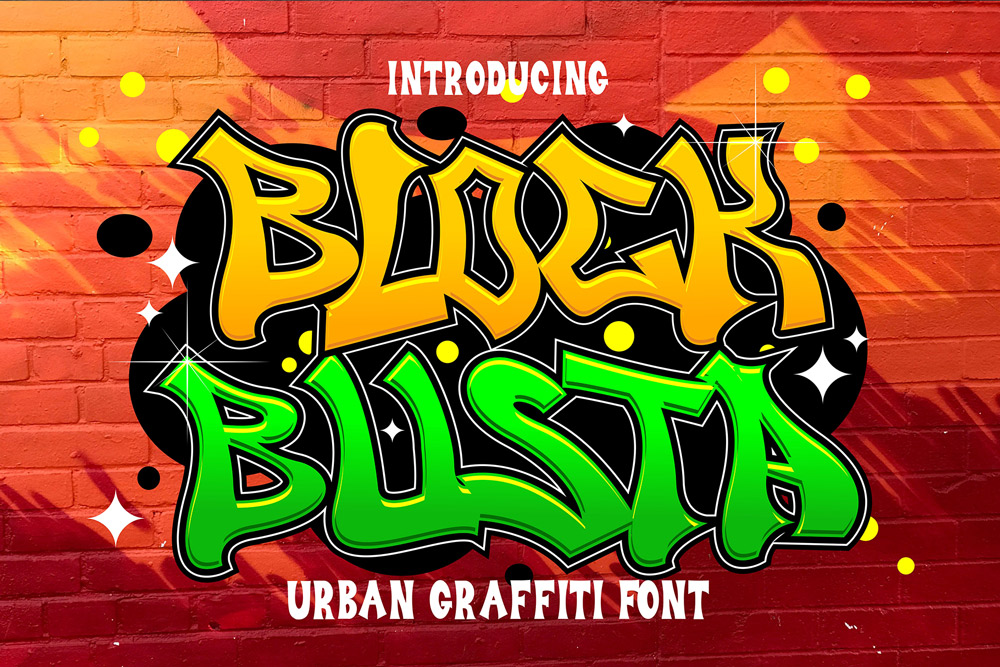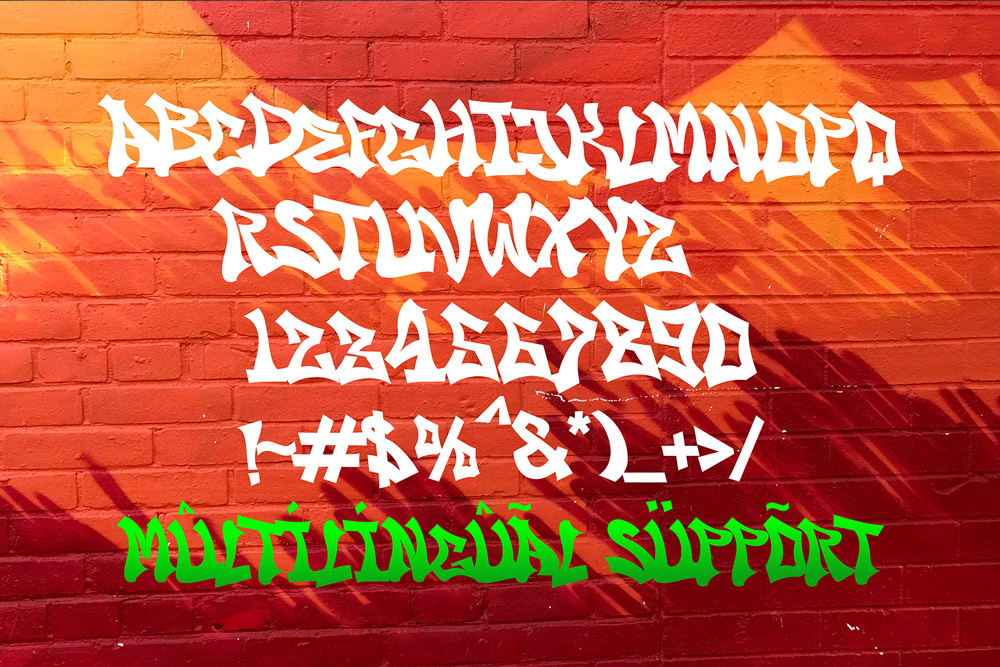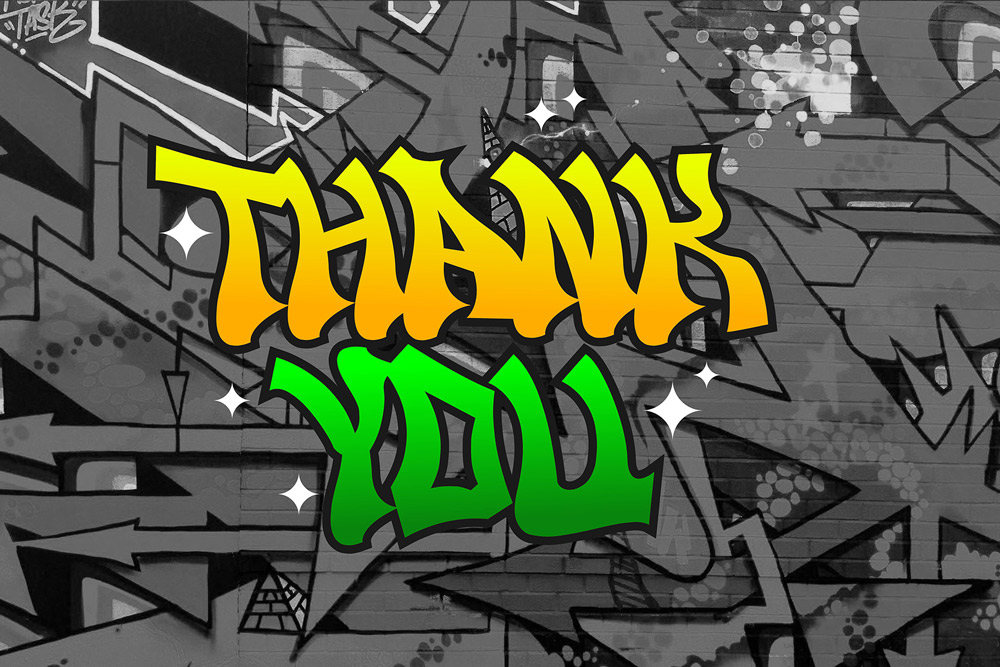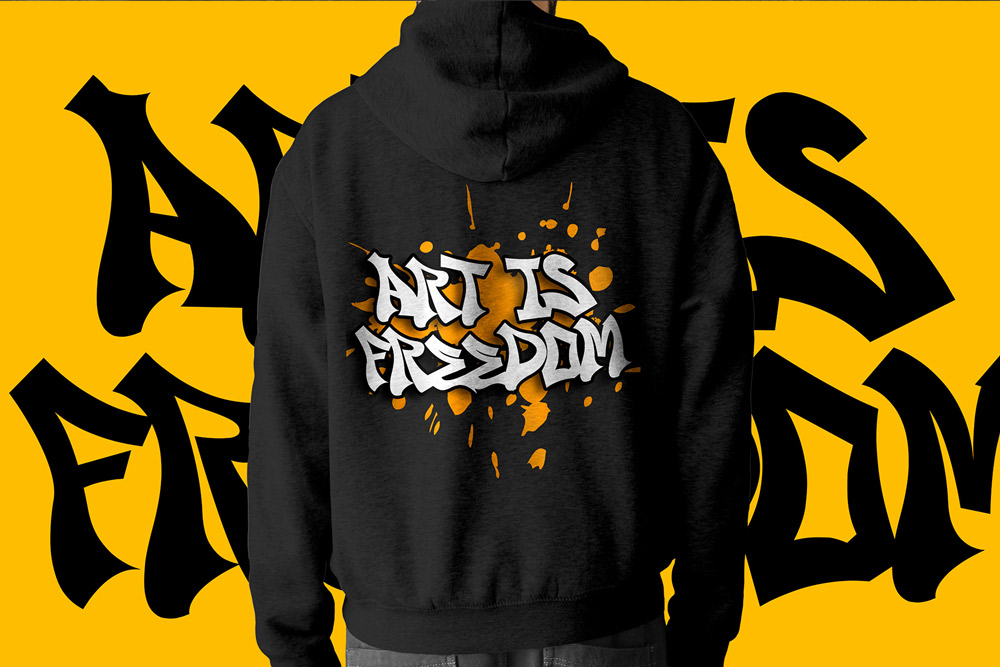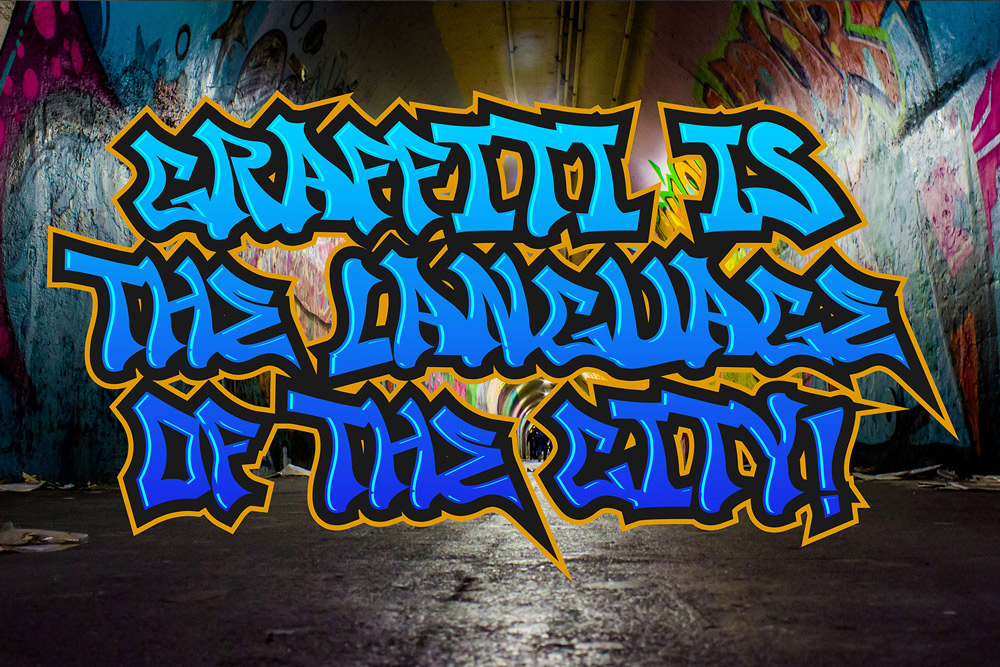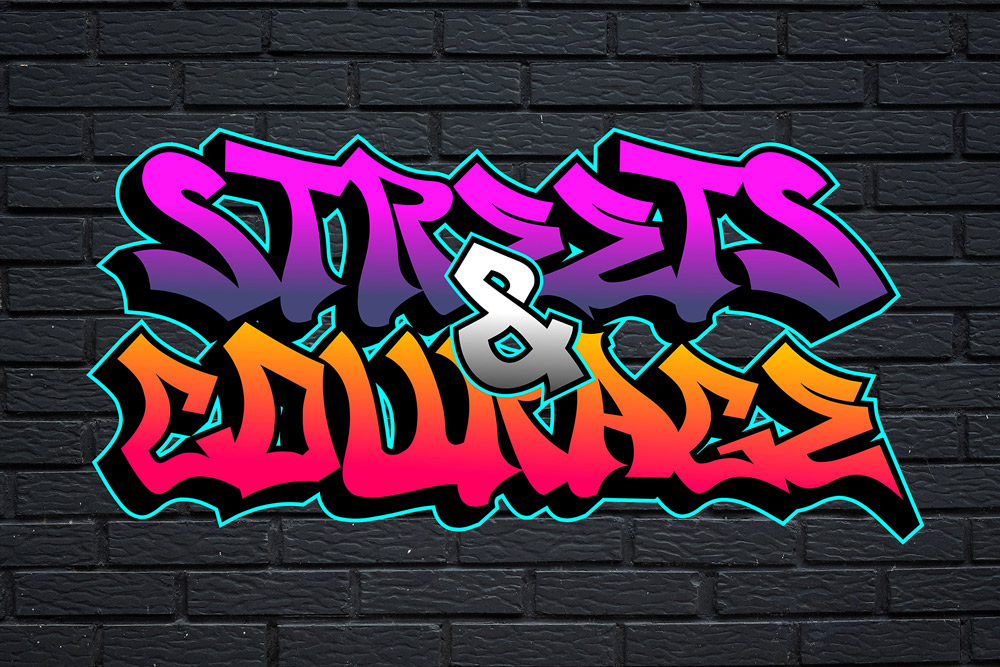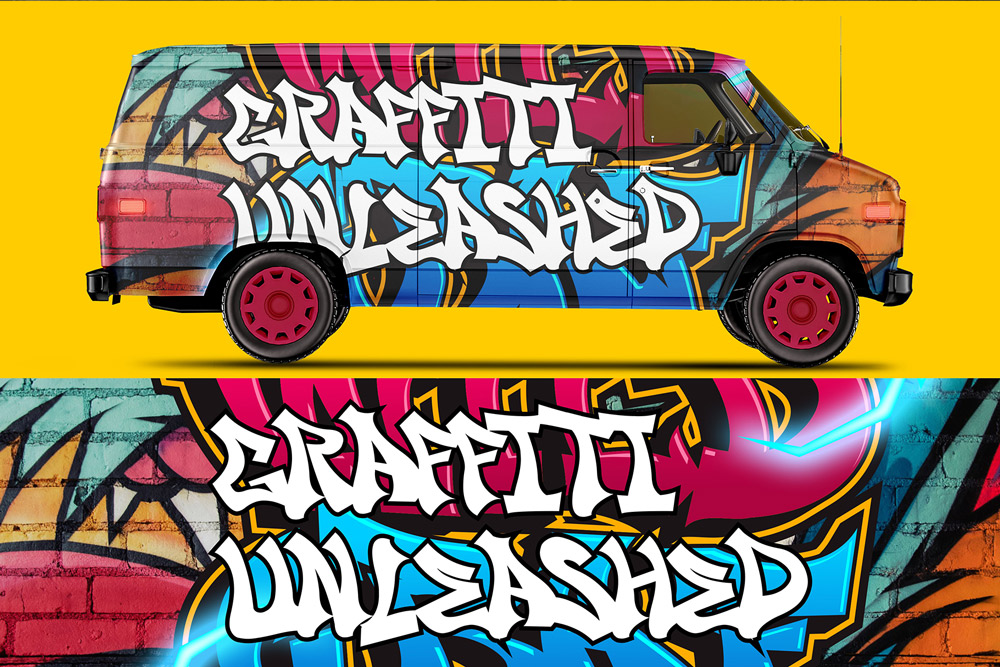
Block Busta – Wavy and Urban Graffiti Font
Block Busta is a bold and energetic graffiti font that brings a fresh wave of urban creativity into your design projects. Built with distinctive wavy shapes and dynamic flow, this urban graffiti font captures the rhythm of street art while maintaining strong readability. Whether you’re designing for streetwear, posters, music visuals, or branding, Block Busta graffiti font delivers a powerful and modern visual identity.
This wavy graffiti font stands out with its unique movement and bold structure, making it perfect for designers who want expressive typography that feels alive. Inspired by real street lettering styles, Block Busta blends playful curves with raw urban energy, creating a graffiti display font that is both stylish and impactful.
A Wavy Graffiti Font with Urban Flow
Block Busta graffiti font is designed to move. Its wavy letterforms create a sense of motion that adds life to your typography. This graffiti font reflects the fluidity of street art, where letters bend, stretch, and flow naturally across surfaces.
The result is a wavy graffiti font that feels organic and expressive. It’s perfect for projects that need a creative edge, from bold branding to artistic compositions. With its strong visual rhythm, Block Busta urban font transforms static text into dynamic design elements.
Bold, Playful, and Attention-Grabbing
If you’re looking for a graffiti font that commands attention, Block Busta delivers. Its thick shapes and wavy structure ensure high visibility, making it ideal for headlines, logos, and promotional graphics. This graffiti display font is designed to stand out in crowded layouts and grab attention instantly.
The playful curves in this urban graffiti font create a unique personality that sets it apart from traditional graffiti styles. It’s bold without being rigid, expressive without losing clarity—making it a versatile graffiti typeface for modern creatives.
Complete Character Set & Typography Features
Block Busta – Wavy and Urban Graffiti Font includes a comprehensive set of features to support professional design needs.
✔ Uppercase Characters
Strong and expressive uppercase letters designed with authentic graffiti font style for maximum visual impact.
✔ Multilingual Support
Supports multiple languages, making this graffiti font suitable for global branding and international projects.
✔ Numbers & Punctuation
A complete set of numbers and punctuation ensures flexibility for all types of creative work using this urban graffiti font.
✔ Stylistic Alternates (Melted/Dripping)
Includes stylistic alternates with melted and dripping variations, allowing you to experiment and create unique compositions using this wavy graffiti font.
- Unique wavy graffiti font design
- Bold and dynamic urban lettering
- Includes stylistic alternates (dripping/melted)
- High readability for display typography
- Perfect for streetwear and urban branding
- Versatile for print and digital media
- Designed for modern creative projects
Why Designers Love Block Busta
Designers love Block Busta graffiti font because it offers something different. The wavy style brings a fresh twist to traditional graffiti fonts, making it perfect for projects that need originality. This urban graffiti font allows designers to break away from rigid structures and explore more fluid, expressive typography.
The inclusion of stylistic alternates makes this graffiti font highly flexible. Designers can easily switch between clean and dripping styles to match different creative directions. This adaptability makes Block Busta a valuable tool for branding, advertising, and artistic projects.
Another reason designers prefer this graffiti display font is its balance between creativity and usability. It maintains readability while still delivering strong visual personality—something that many graffiti fonts struggle to achieve.
Perfect For Creative Projects
Block Busta graffiti font is ideal for a wide range of applications:
- Streetwear branding
- Graffiti posters and flyers
- Music album artwork
- Social media content
- Logo design with urban style
- Merchandise and apparel
If you’re searching for a wavy graffiti font that combines movement, style, and impact, Block Busta is the perfect choice.
Block Busta – Wavy and Urban Graffiti Font is more than just a typeface—it’s a creative statement. Its flowing shapes, bold presence, and urban attitude make it a must-have graffiti font for designers who want to push boundaries.
If you’re ready to create eye-catching visuals with a unique wavy graffiti font, Block Busta is your ultimate tool. Bring movement, energy, and personality into your designs—and make every project unforgettable.